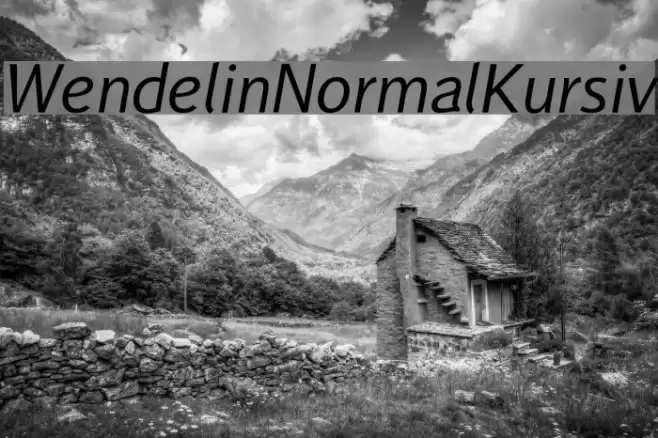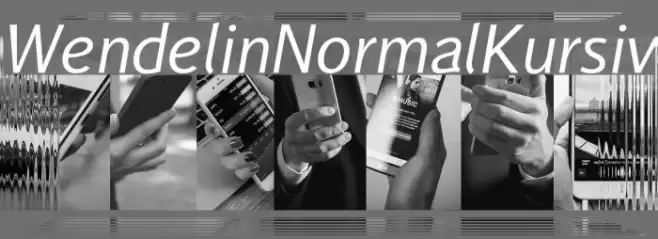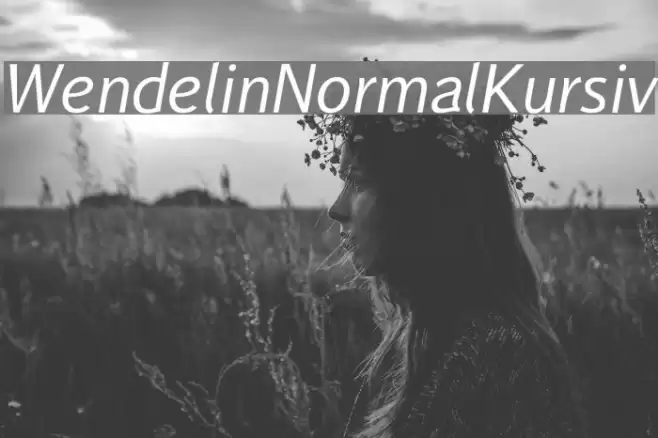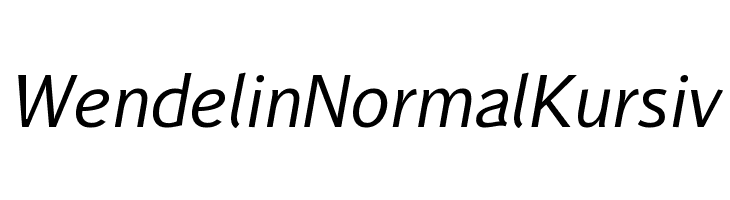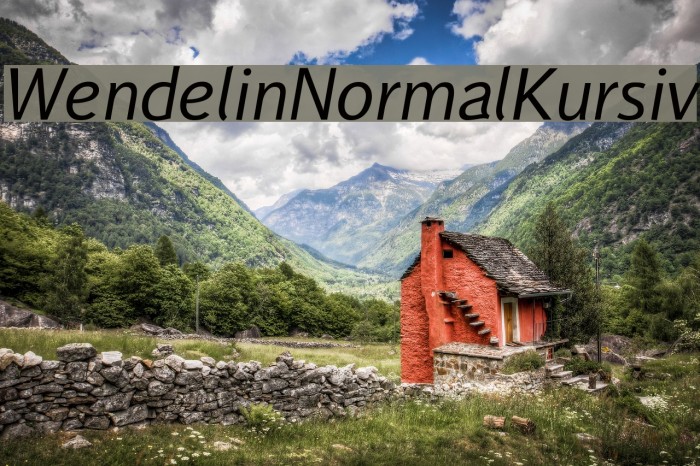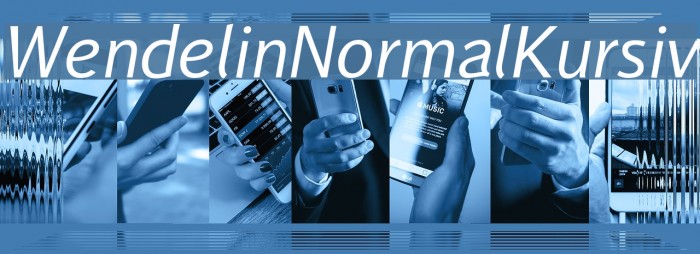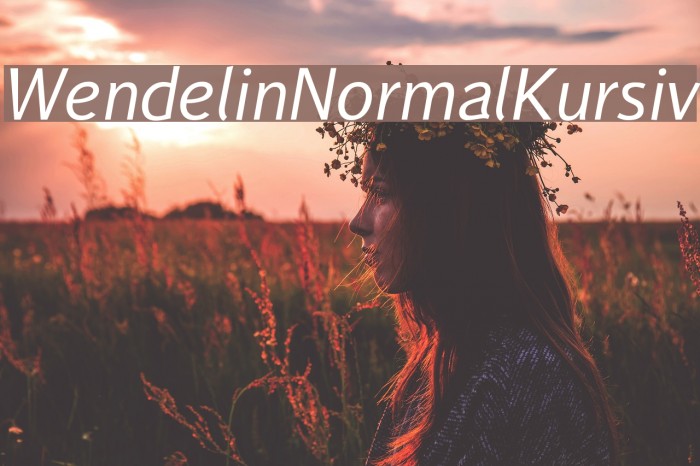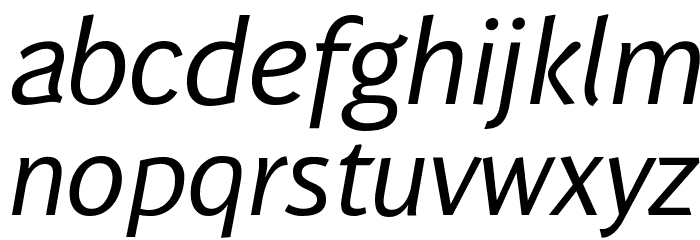
WendelinNormalKursiv
This font exhibits a clean and modern sans-serif style with a slight italic slant, giving it a dynamic and forward-moving appearance. The characters are well-proportioned, with a consistent stroke width that maintains readability across various sizes. The uppercase letters are bold and assertive, while the lowercase letters offer a more subtle and approachable feel. The numerals are clear and distinct, making them suitable for both text and numerical data presentation. Special characters are designed to blend seamlessly with the overall aesthetic, ensuring versatility in usage.
A modern, italic sans-serif font with clean lines and a dynamic appearance.
- Proposed Projects: Ideal for branding, advertising, and editorial design where a modern and professional look is desired.